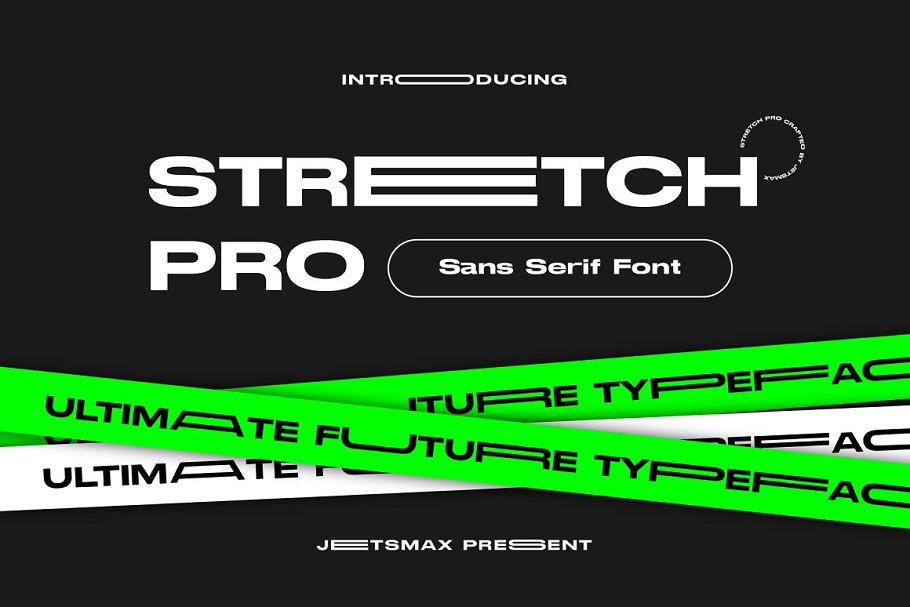
About the Stretch Pro Futuristic Typeface
UPDATE!fixed some extended latinStretch Pro Font is a basic Helvetica that is turned wide, this is a cool sans serif font with a futuristic and modern theme, With its neat and beautiful arrangement of letters, this typeface will look outstanding in both formal and non-formal designs, Stretch Pro Font gives a gorgeous feel to a variety of branding projects, logos, wedding designs, social media posts, advertisements, and so much more
Let your imagination run free!Instructions :Double type or more to make stretchAA → __AAA → ___AAAA → ____What’s Included :Stretch Pro (OTF/WOFF)Web Font (Only WOFF format)Ligature & UniqueWorks on PC & MacSimple installationsAccessible in the Adobe Illustrator, Adobe Photoshop, Adobe InDesign, even work on Microsoft Word